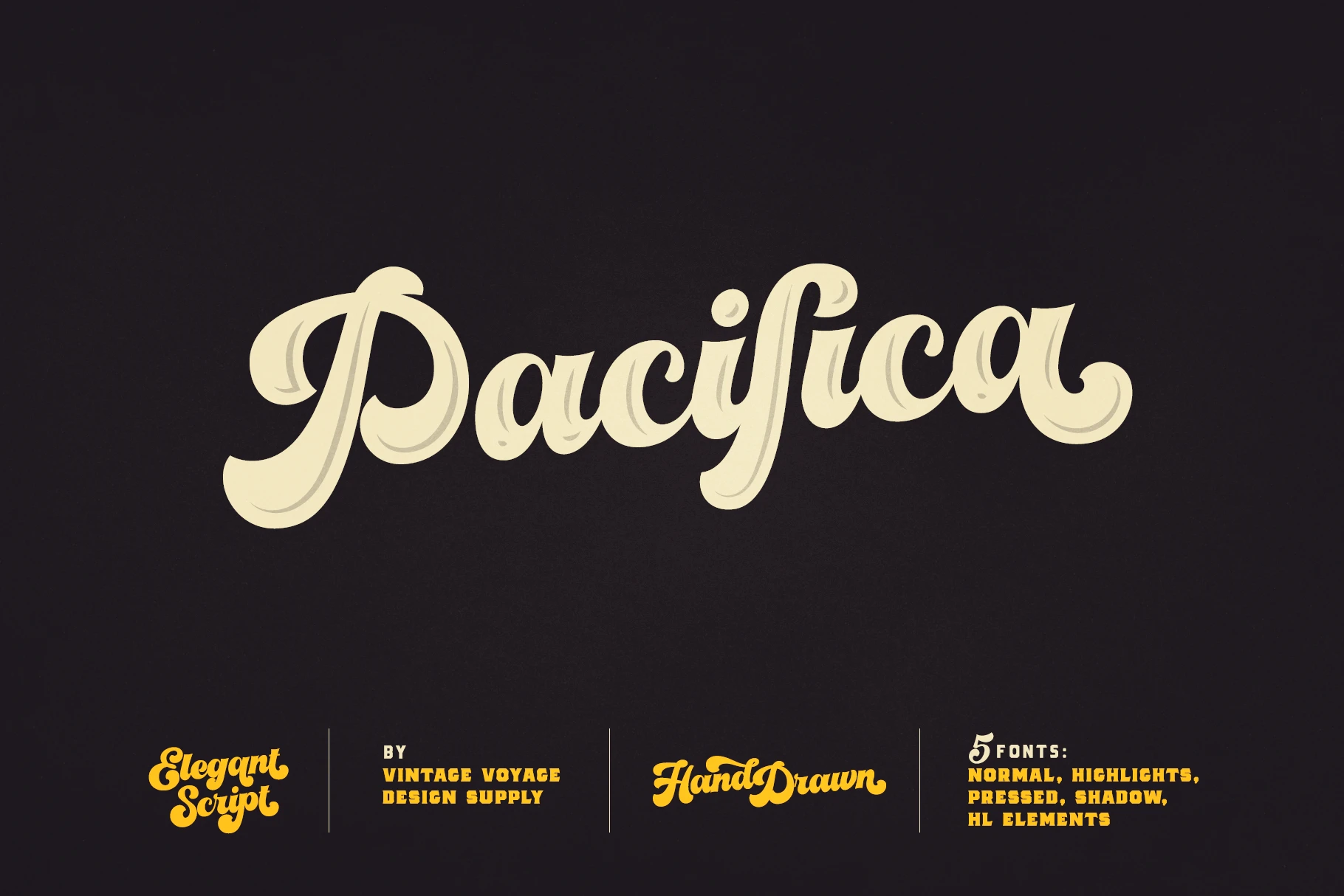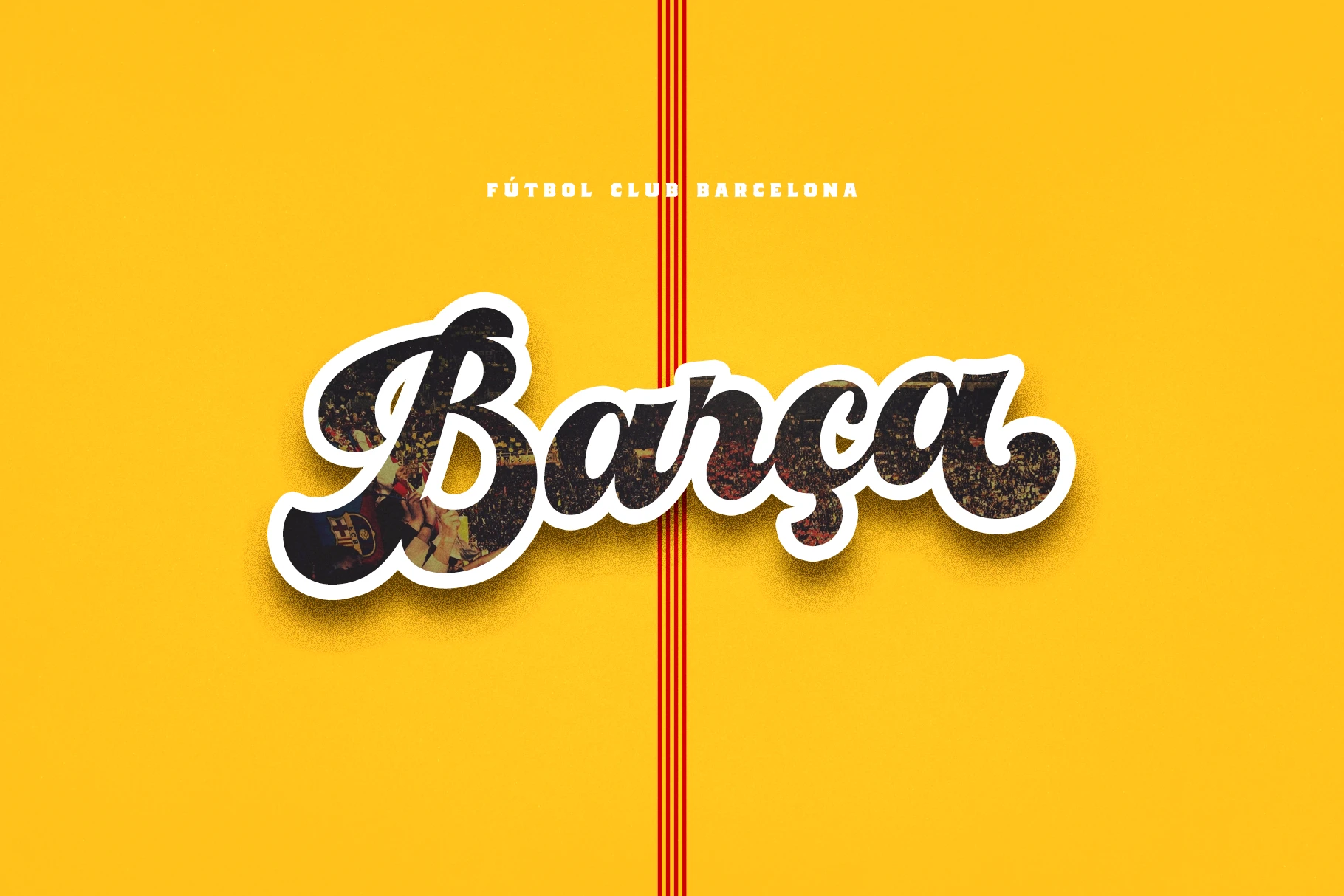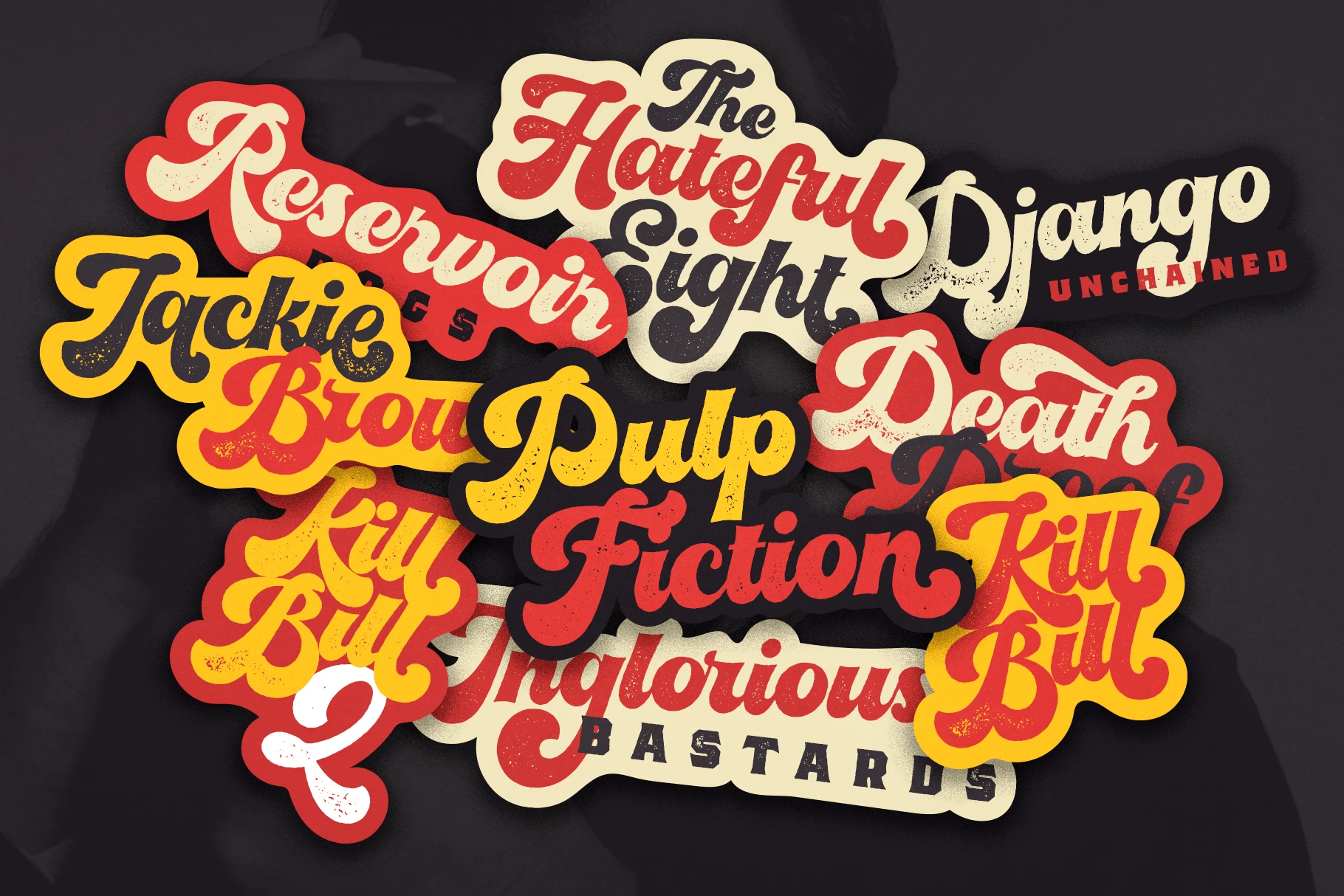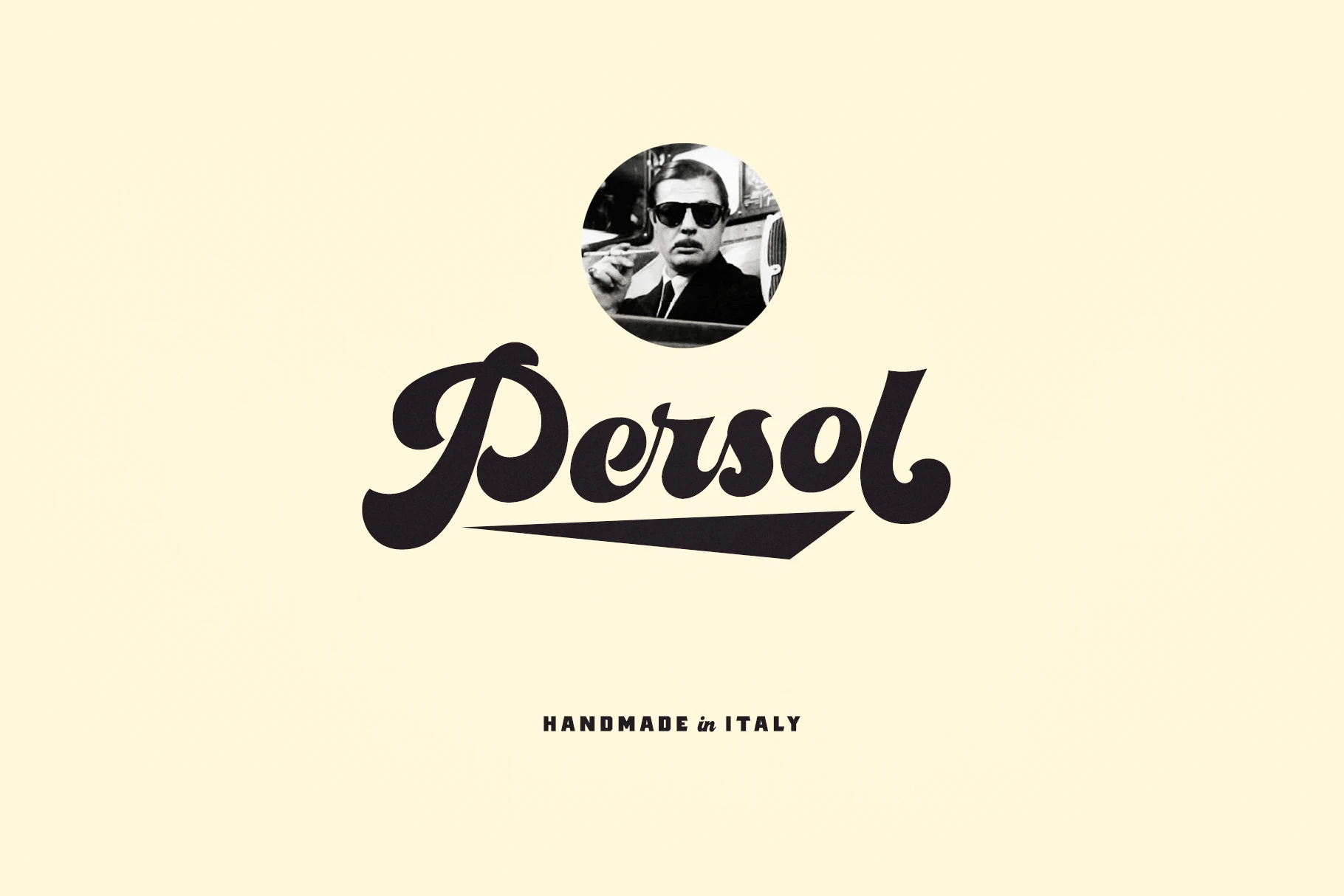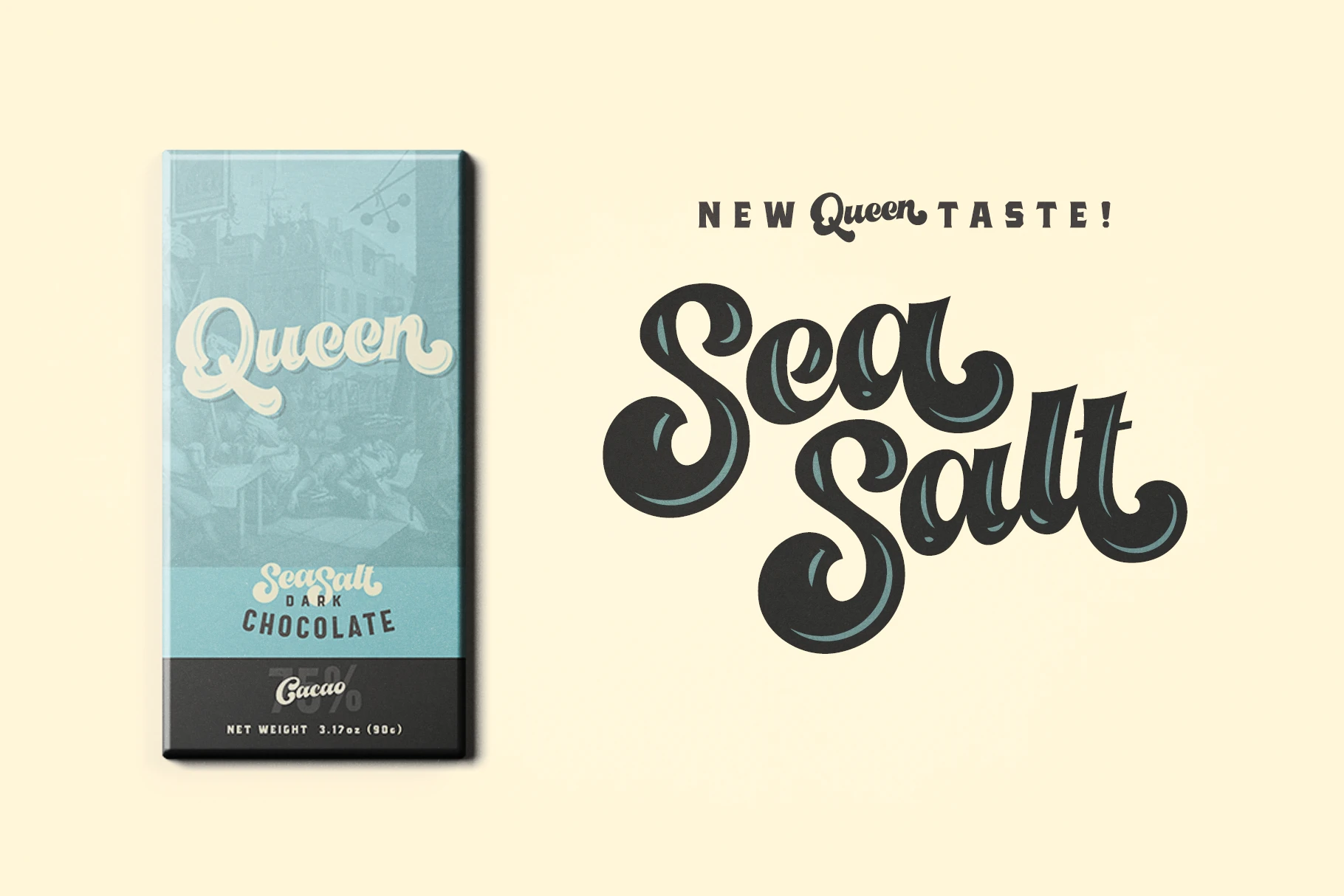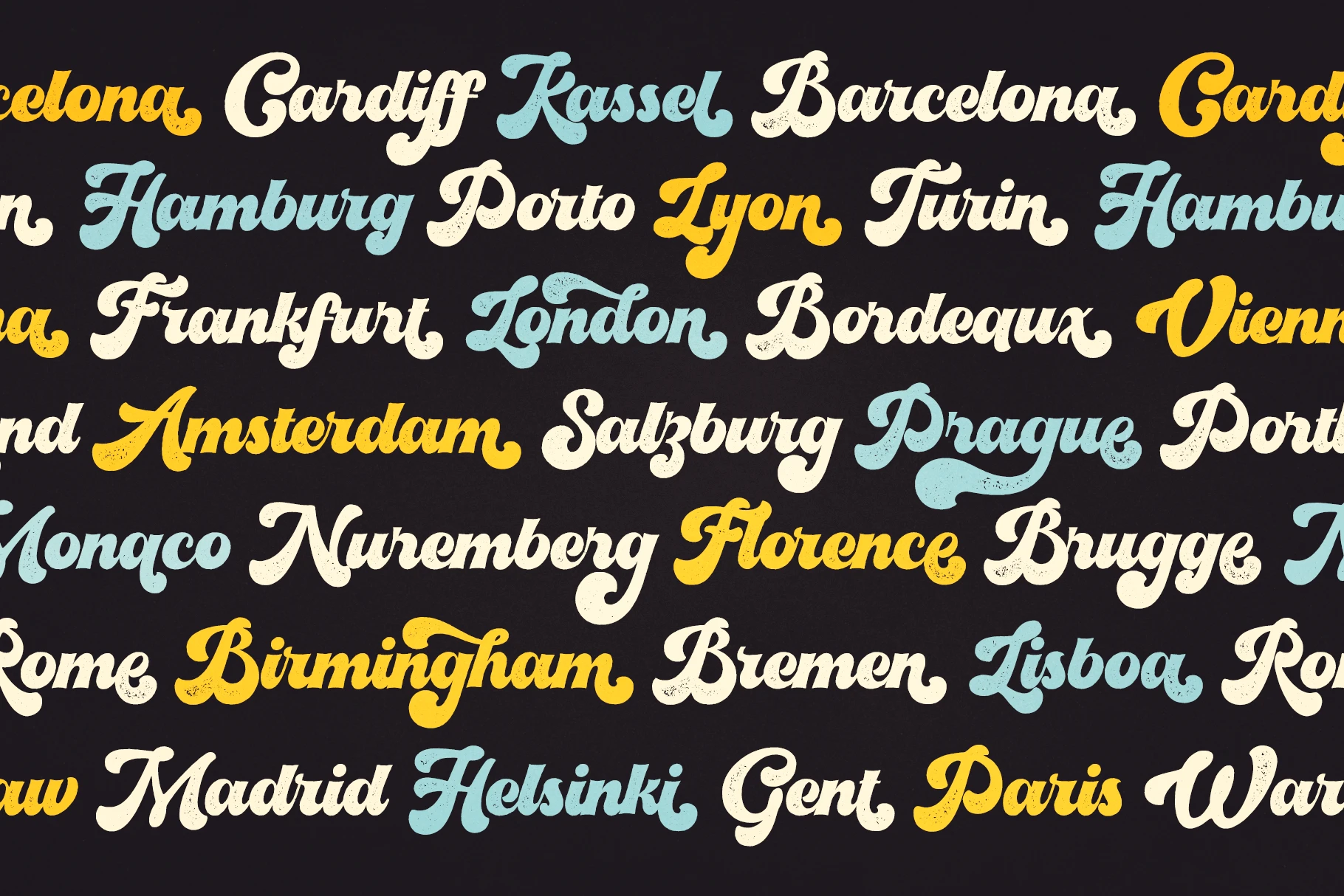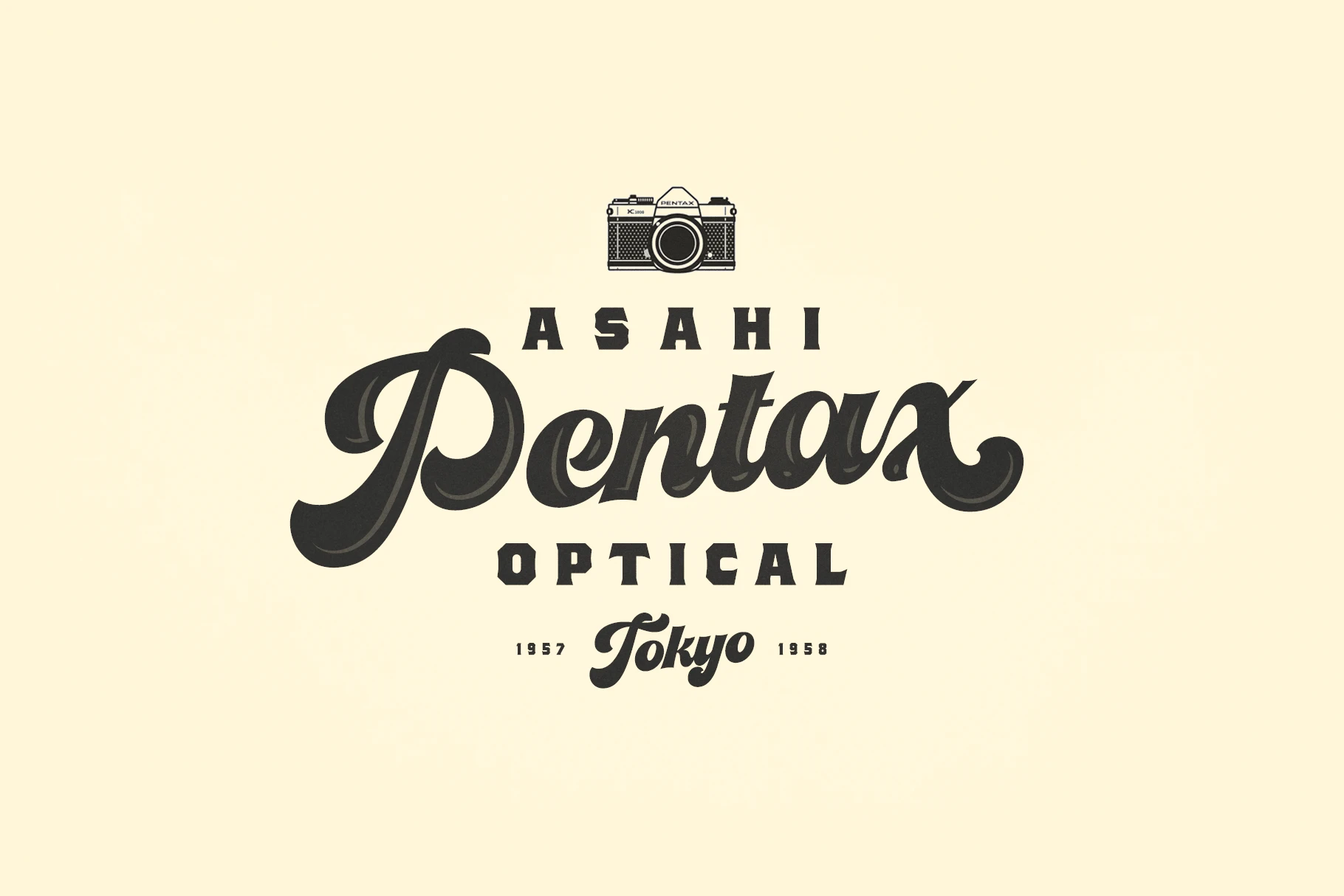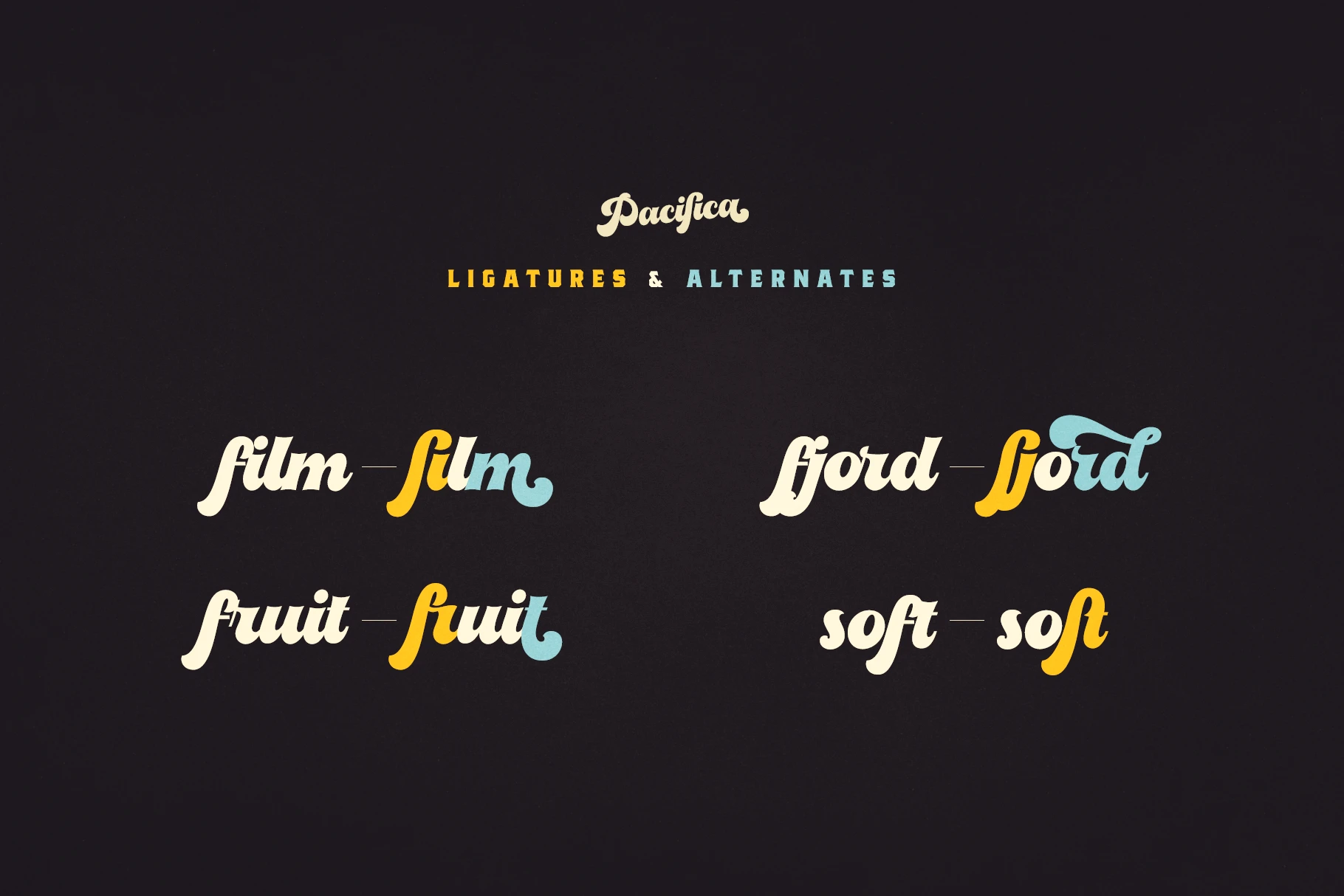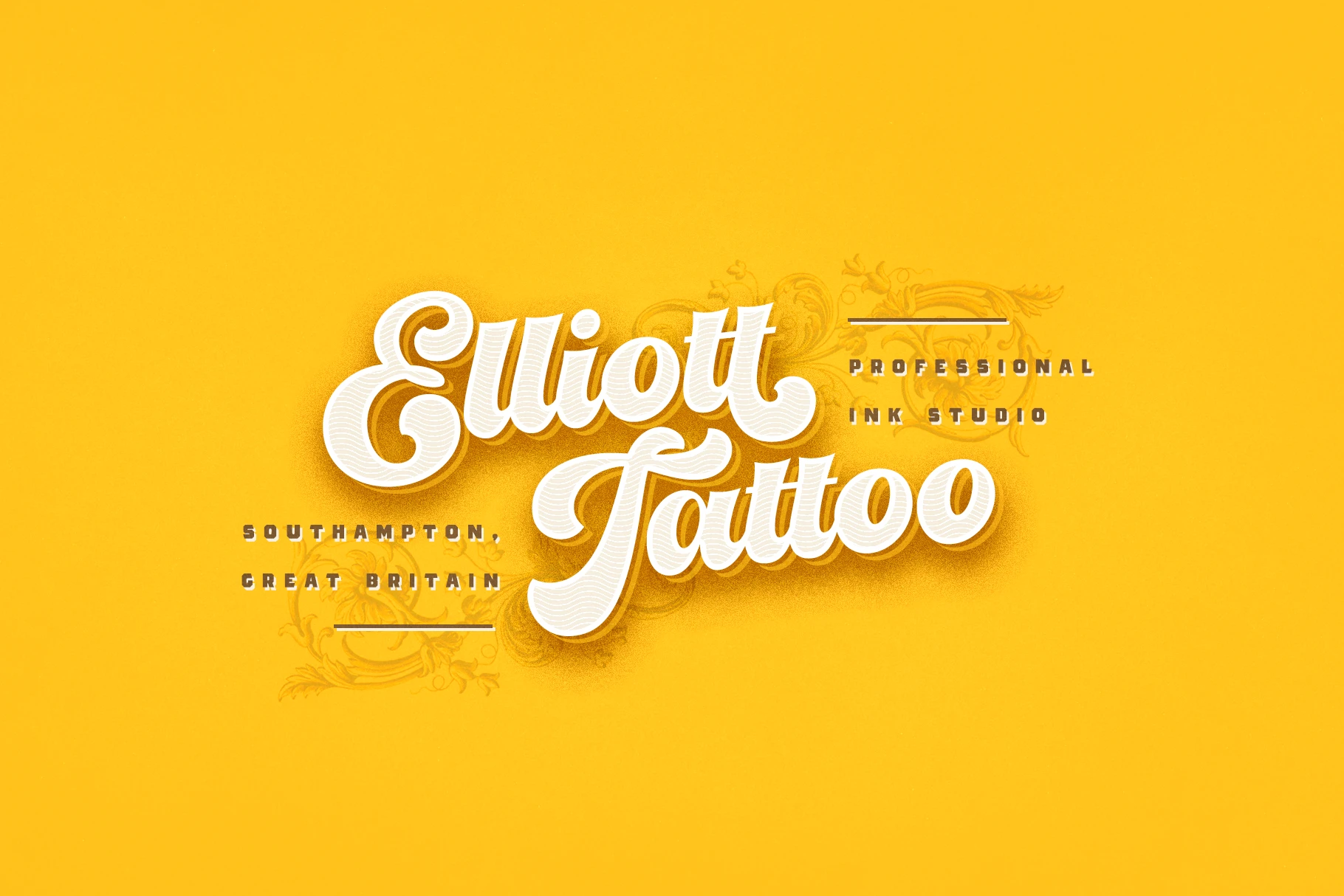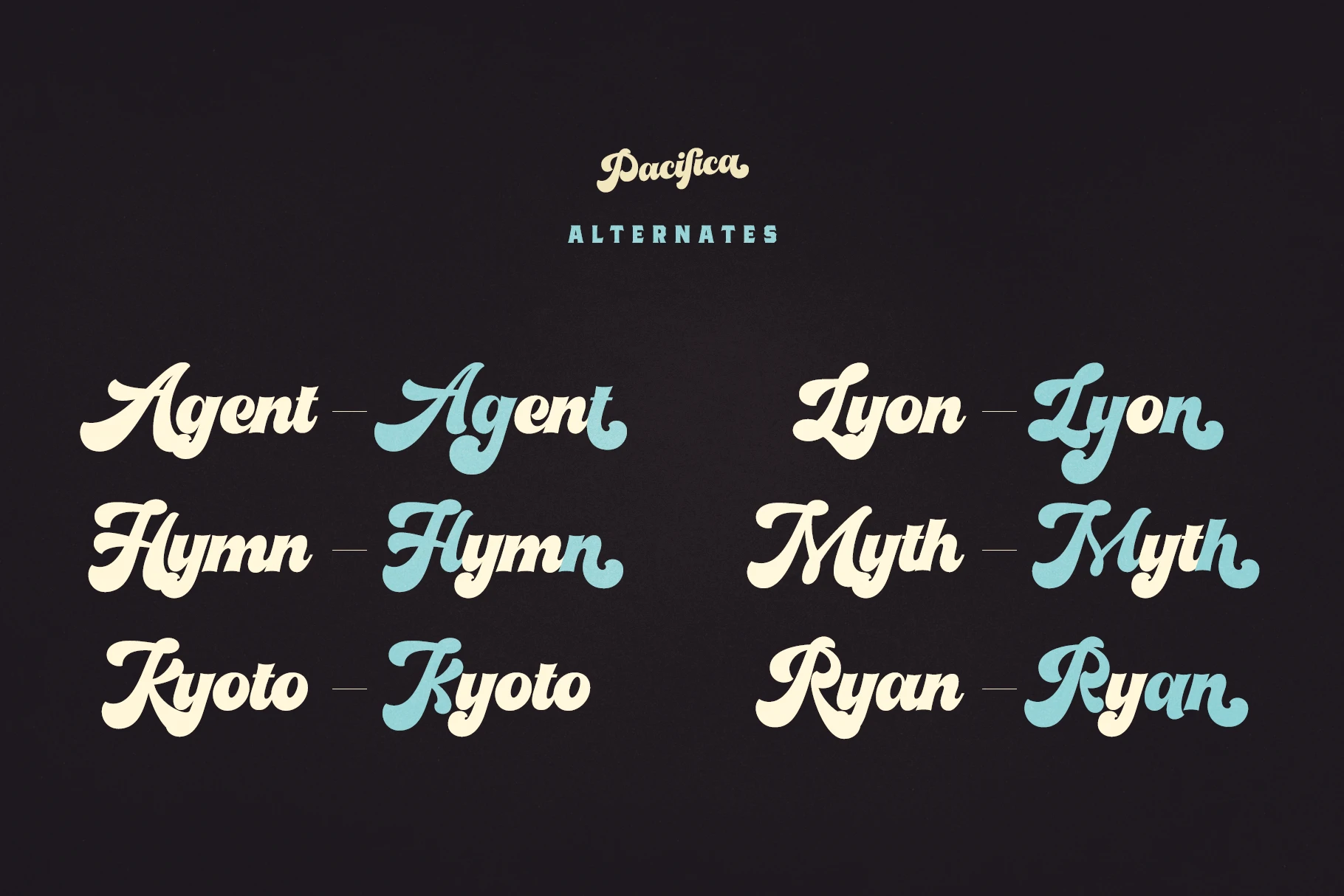
Pacifica Font Family
Pacifica is a hand-lettered bold script inspired by late 20th-century American branding typography. Designed for decorative use with an elegant, confident look. Available in multiple variations — filled, highlighted, and pressed — for added texture and style. Ideal for headers, signs, logos, prints, and display applications. Includes ending and middle alternates, along with standard ligatures, to create expressive and customized lettering. Built to bring a bold vintage flair to standout designs.
• Common Ligatures
• Stylistic Alternates
• Stylistic Sets
Pacifica font styles
Pacifica Highlight
Pacifica Highlight Elements
Pacifica Pressed
Pacifica Regular
Pacifica Shadow